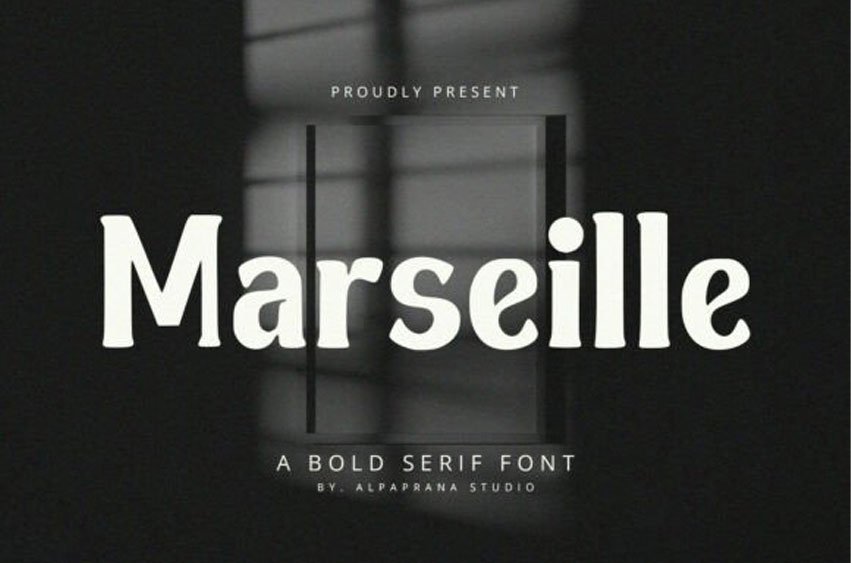
Marseille Font is a bold serif font with an elegant and modern feel.
It will be perfectly used for magazines, packaging, posters, shopping bags, t-shirts, book covers, photography, special events, and other design projects.